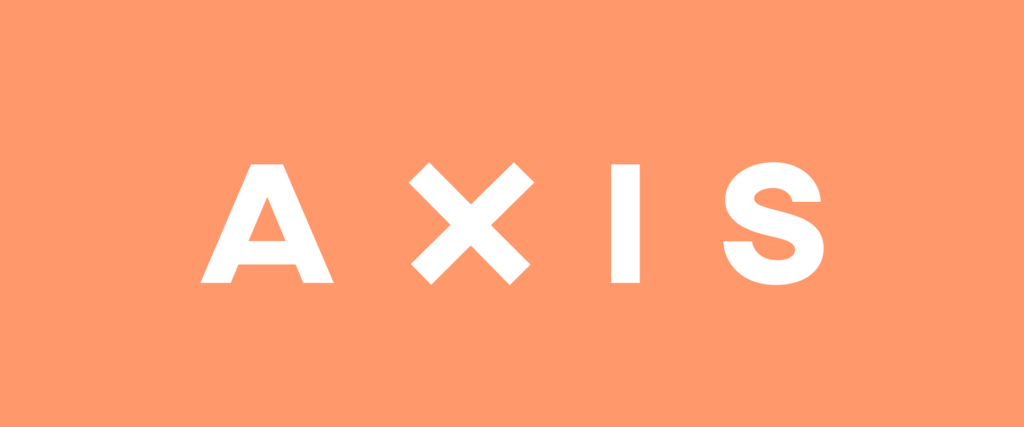
Peace Sans made by Ivan Gladkikh and Sergey Ryadovoy free bold font made with love! It can make your typography more peacefull and kind. Use it any way, its absolutely free. It was created in the learning process in TypeType School. Peace!.
AXIS Typeface